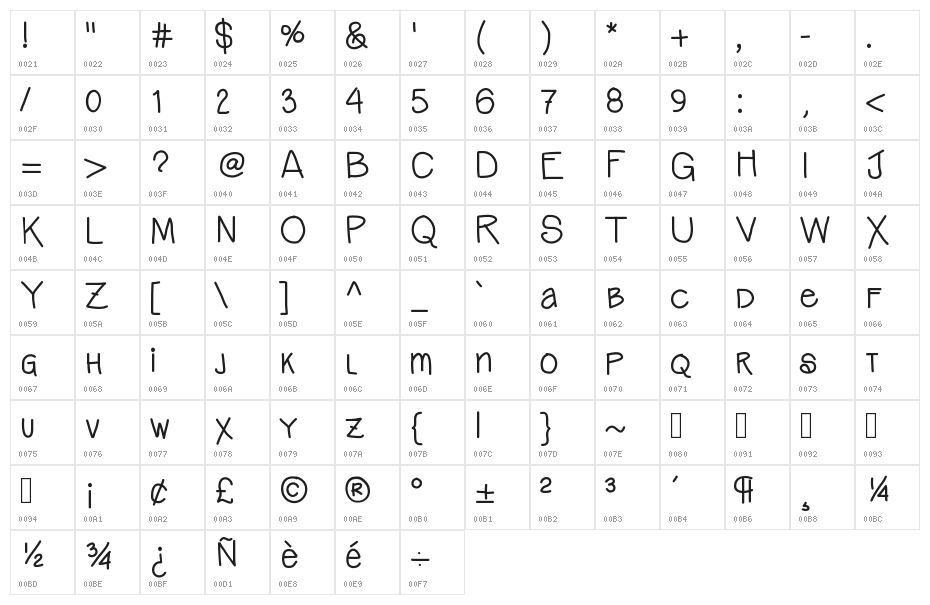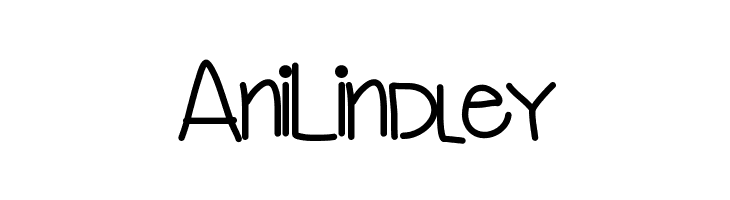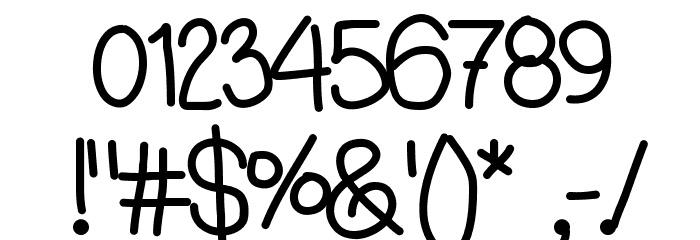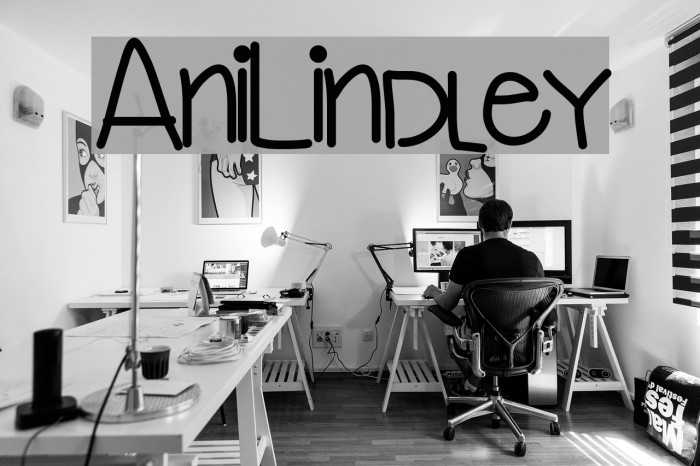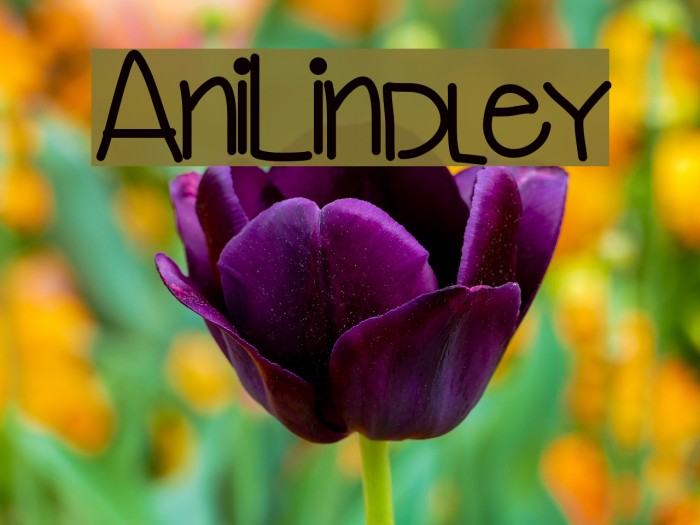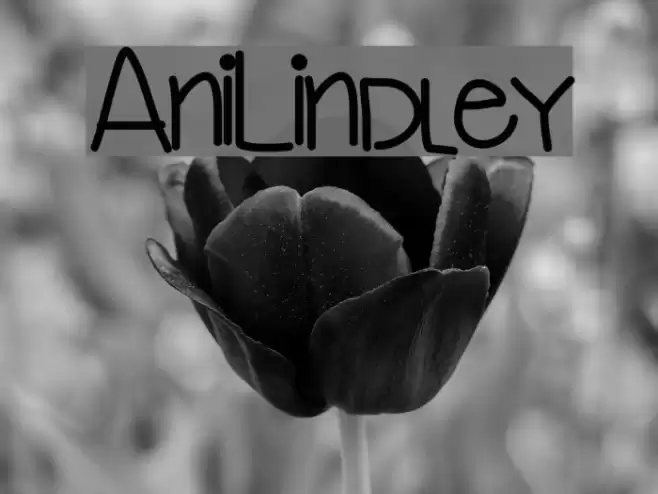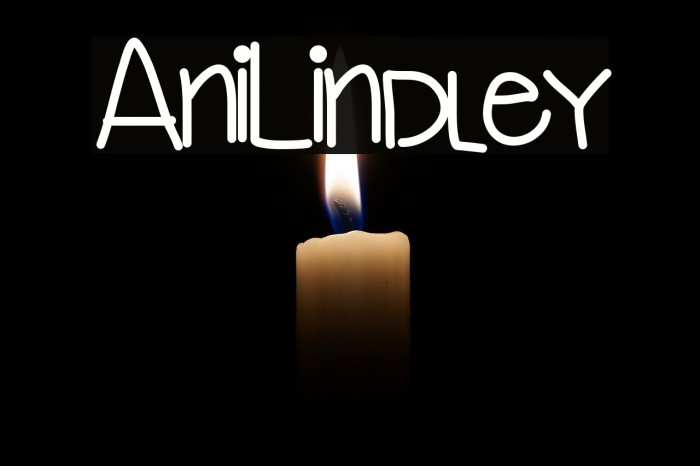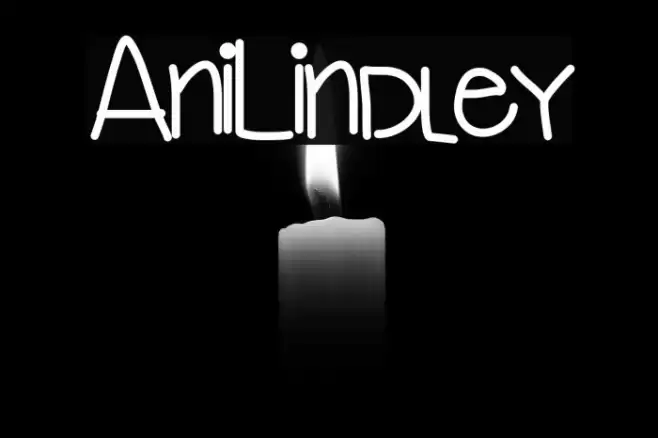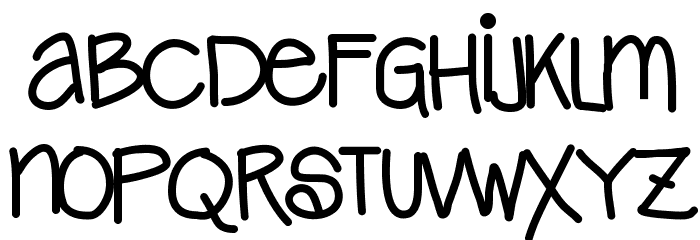
AniLindley Font
AniLindley Description
This playful and whimsical font features a handwritten style with a casual and friendly appearance. The letters are rounded and slightly irregular, giving it a personal and informal touch. It includes both uppercase and lowercase letters, numbers, and a variety of special characters. The strokes are consistent in weight, providing a uniform look across all characters. This font is ideal for projects that require a fun and approachable aesthetic.
| Overall Style | Playful |
| Use Case | Headlines, Logos, Informal Text |
| Proposed Projects | Perfect for children's books, greeting cards, playful branding, and social media graphics. |